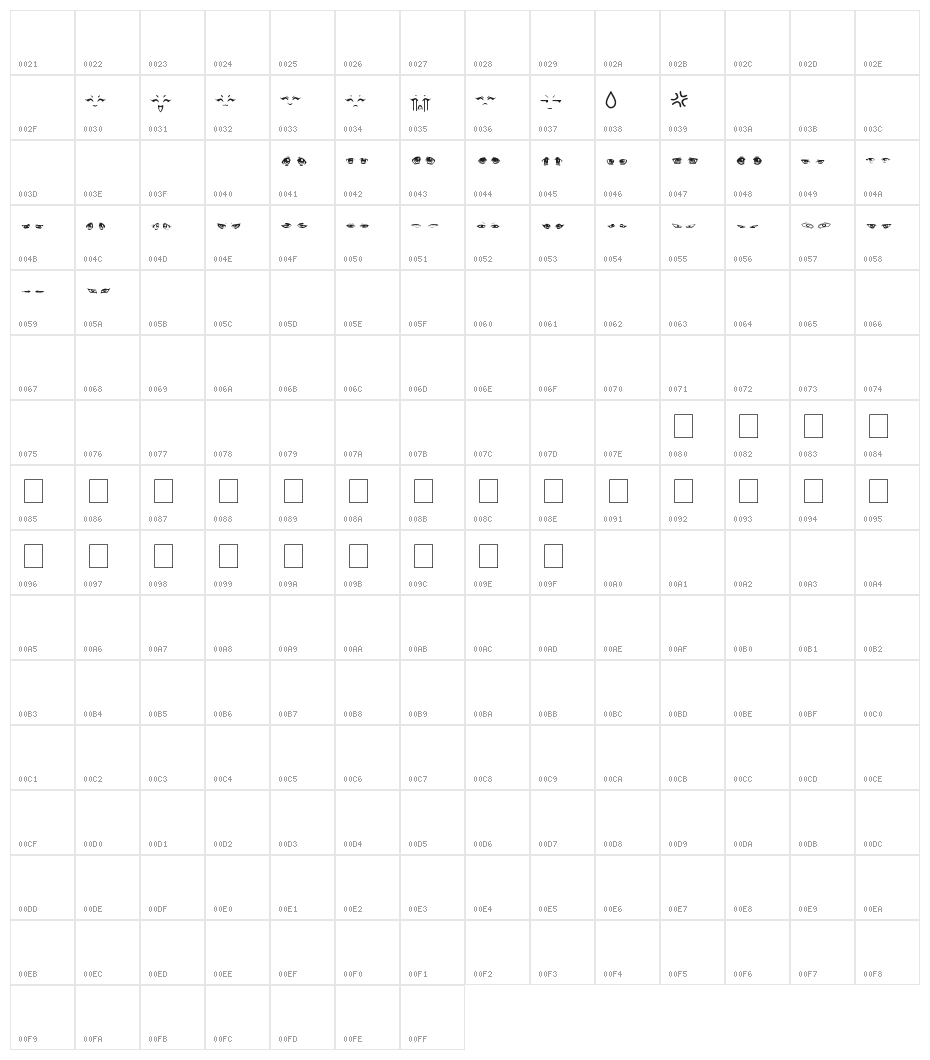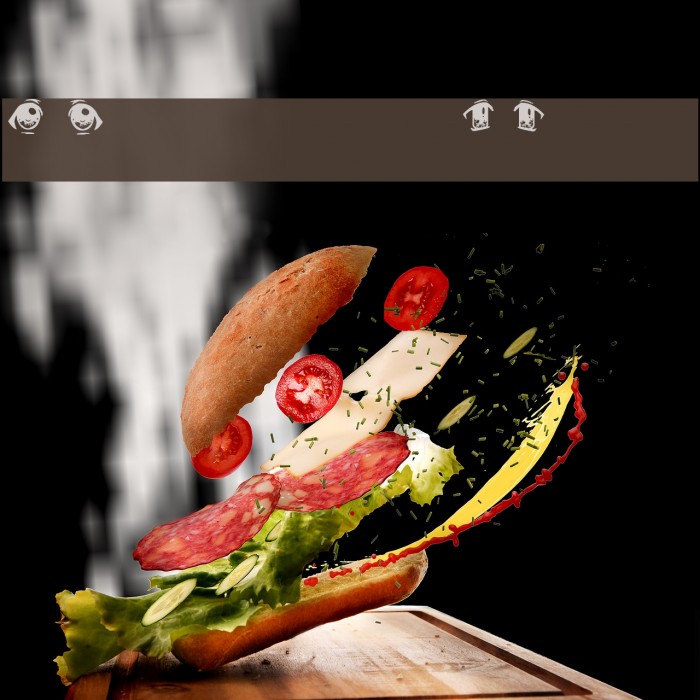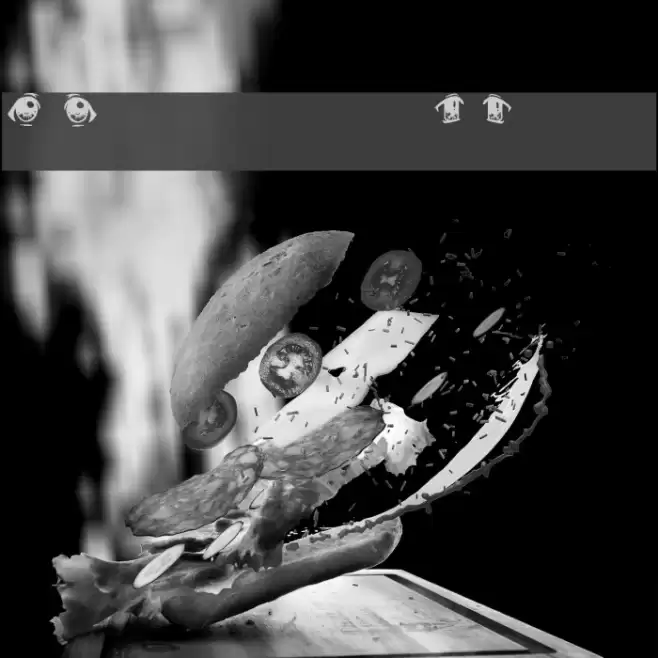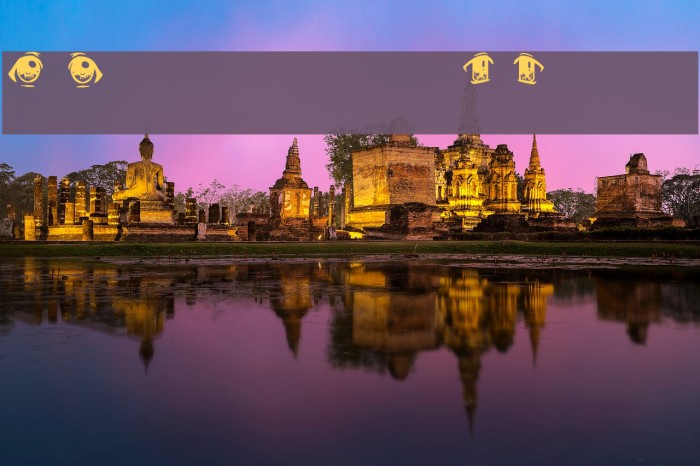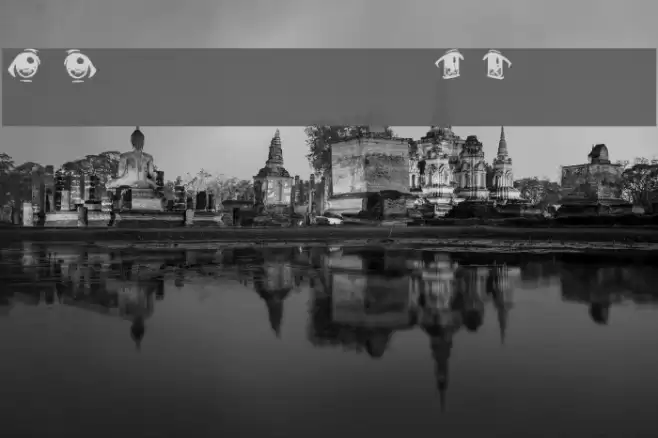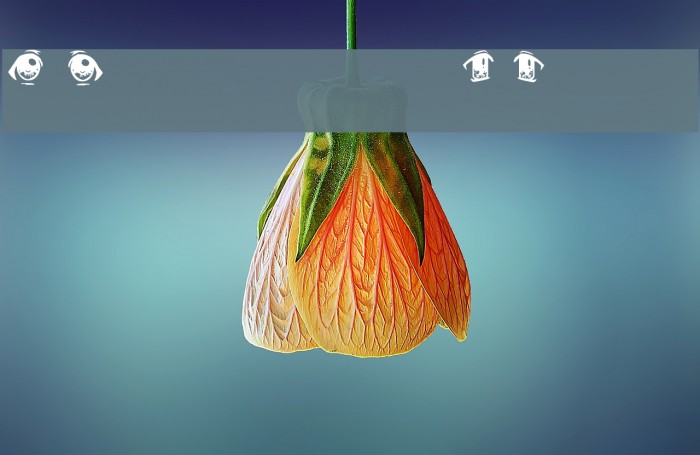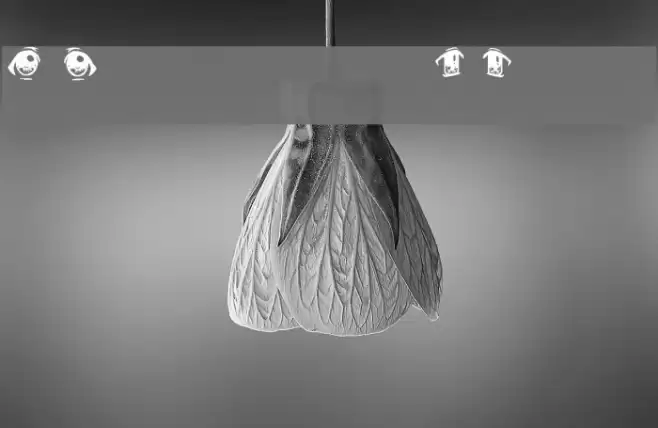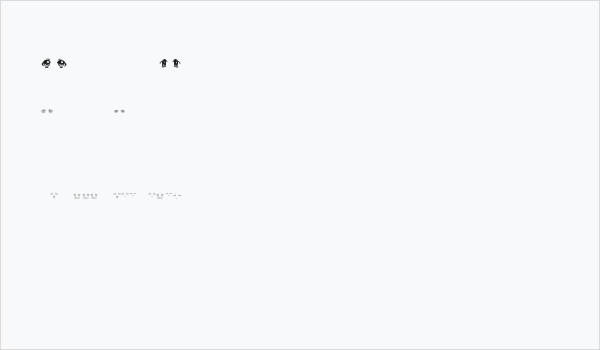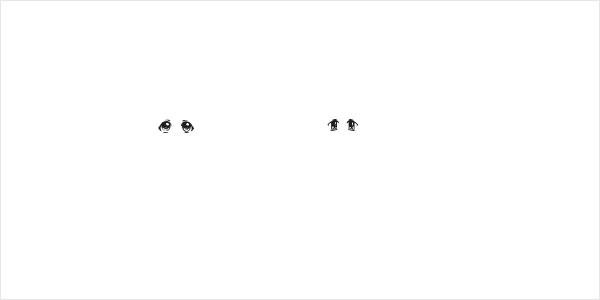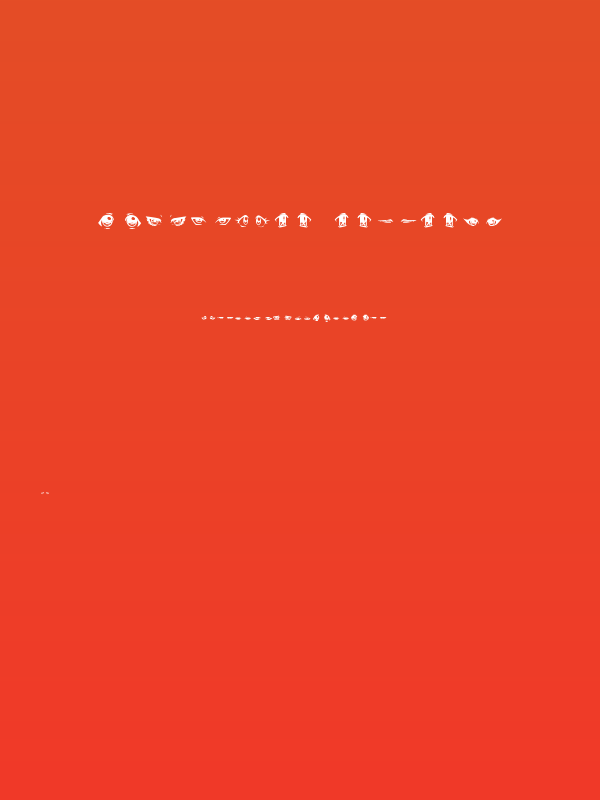
Anime Eyes Font
Anime Eyes Description
This is a decorative font that features a variety of stylized anime eyes. Each character is represented by a unique eye design, capturing different emotions and expressions typical of anime art. The designs are intricate, with detailed line work that conveys a sense of personality and mood. This font is highly thematic, focusing on the visual language of anime, making it ideal for creative projects that aim to evoke a playful or whimsical atmosphere. The characters are evenly spaced, ensuring readability while maintaining their artistic flair.
| Use Case | Logos, Posters, Creative Art |
| Proposed Projects | Ideal for comic books, anime-themed posters, graphic novels, and creative digital art projects. |